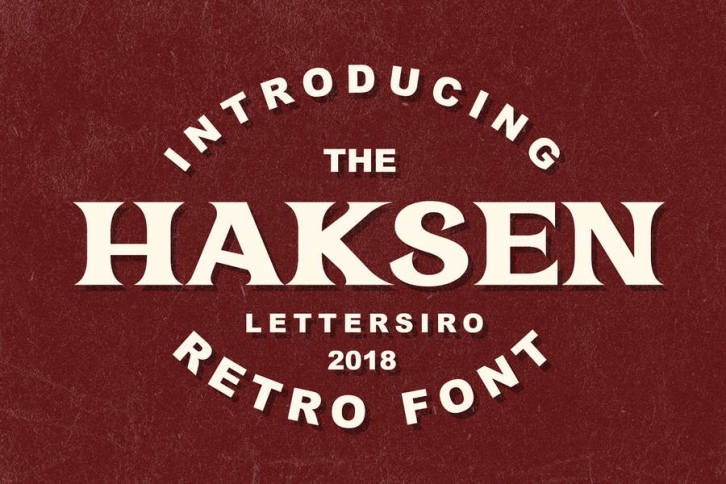
Hi There ! This is our newest product, inspiride by retro style. We call this font "Haksen".
Haksen is perfect for any retro project, poster, logo, label, clothing, music album cover, and many others.